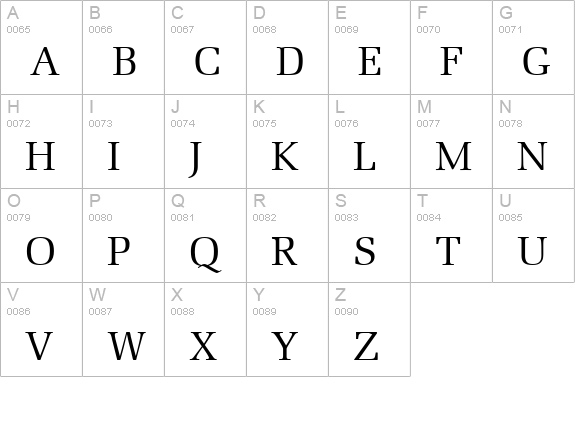
Bid Roman Normal is the standard, neutral variant in the Bid typeface family \xE2\x80\x94 well suited to general body text, paragraphs, and standard typographic work.
Bid Roman Normal is a classic and elegant font that exudes sophistication and refinement. Its clean lines and balanced proportions make it highly versatile for a wide range of design projects. Whether used for print materials, websites, or branding, Bid Roman Normal adds a touch of timeless style to any composition. What sets Bid Roman Normal apart is not only its aesthetic appeal but also its accessibility. This high-quality font is available for free download at FontsMarket.com, making it easily accessible to designers and creatives looking to elevate their work with a touch of elegance. Embodying a sense of tradition and modernity, Bid Roman Normal is a must-have addition to any designer's toolkit.